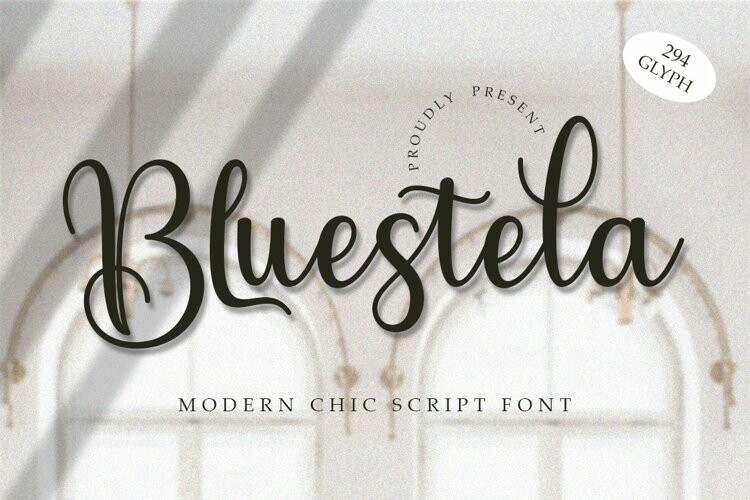
Bluestela Font
Bluestela FontHello.. Introduced by Erick Studio, Bluestela Script, a fresh & modern new calligraphy script with a luxurious calligraphy style. A classy, yet modern impression keeps “Bluestela Script” catchy for all your creativity. Stunning and very beautiful typeface on invitations such as greeting cards, branding materials, business cards, quotes, posters and much more!